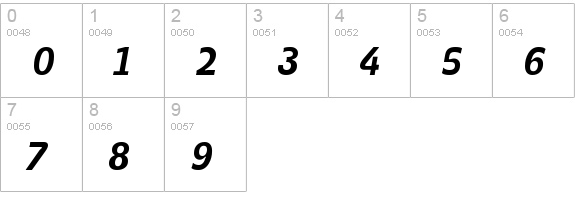
Spotka AlternateBold Italic is a distinctive, italic variant in the Spotka typeface family \xE2\x80\x94 well suited to design and typography projects.